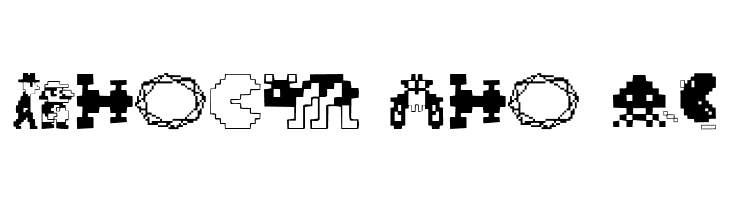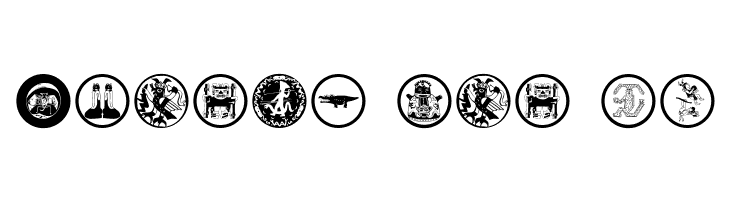
A decorative font inspired by classic arcade game graphics, featuring pixelated, nostalgic symbols.
A decorative font with intricate illustrations inspired by early American art.
A whimsical collection of artistic illustrations representing creative activities.
A decorative typeface inspired by Dia de los Muertos, featuring festive and thematic symbols.
A collection of bold, 1980s-themed icons and graphics.
A decorative font with stylized illustrations of Indonesian women in traditional attire.
Intricate butterfly and caterpillar dingbats for decorative use.
A decorative font inspired by traditional Maori motifs with intricate swirling patterns.